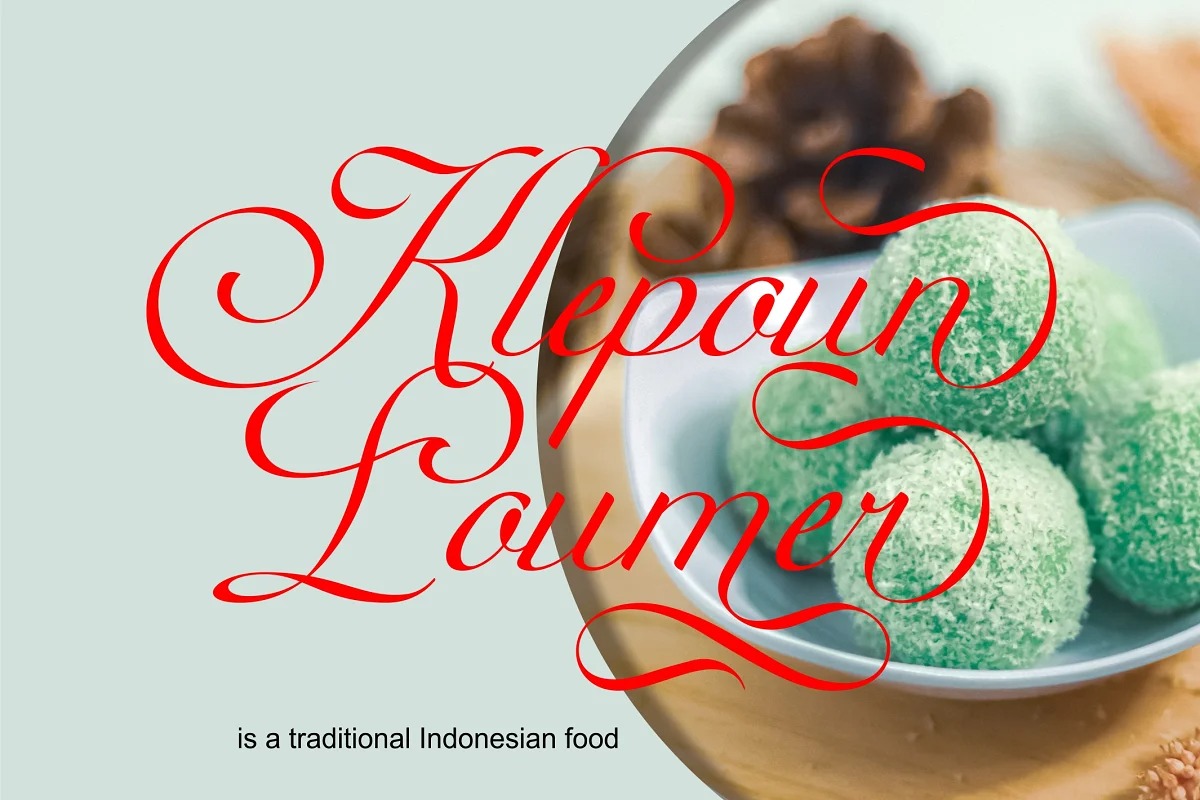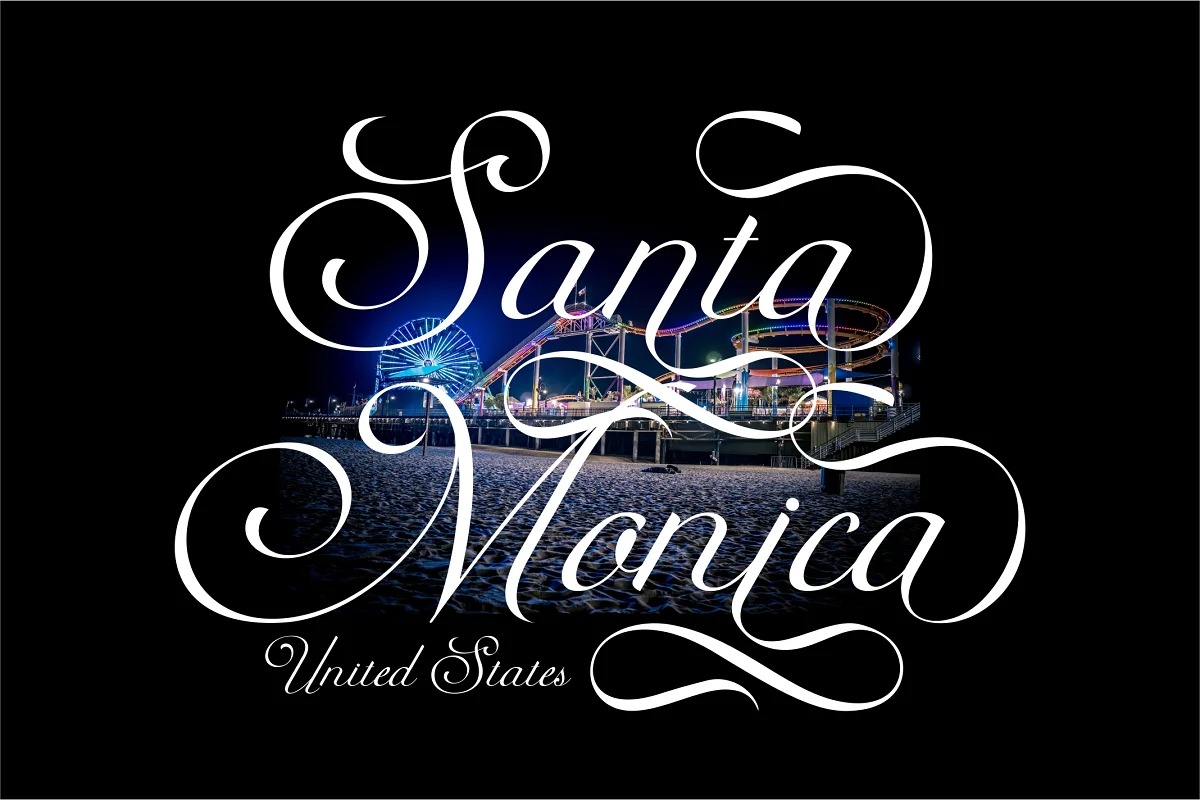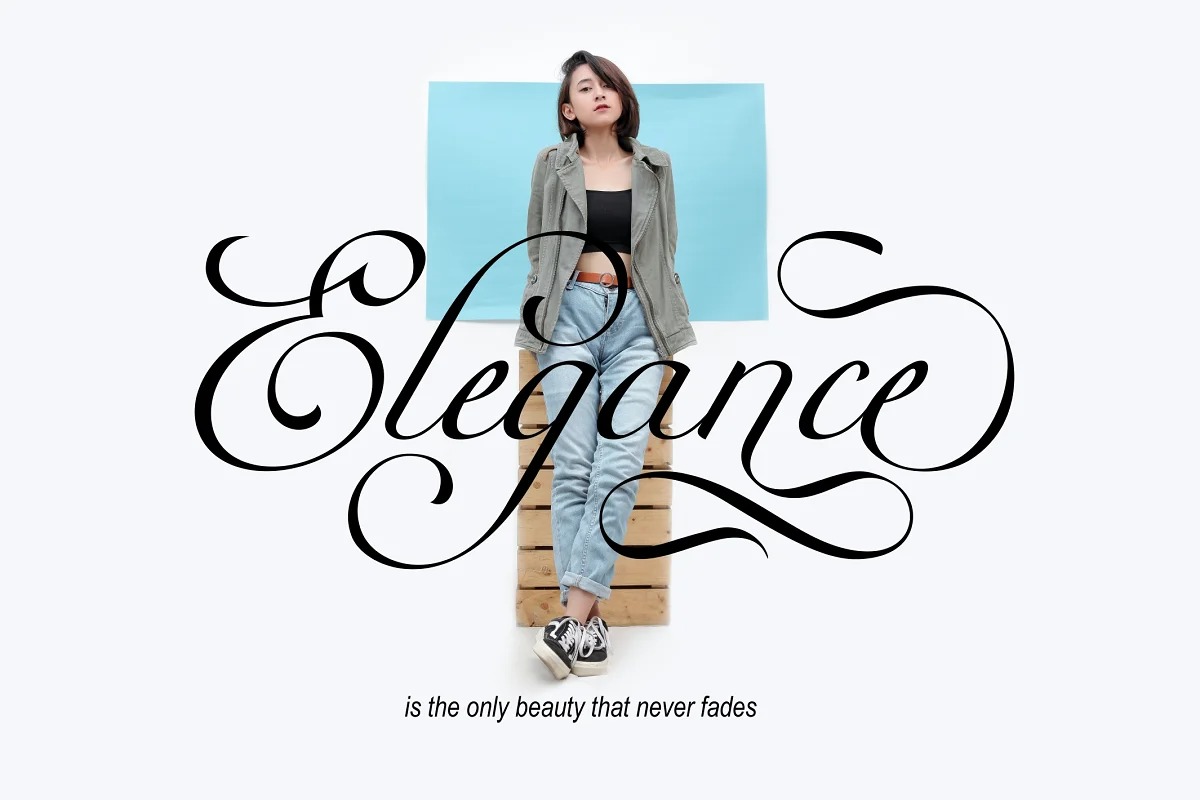
Kalina Font
Kalina Calligraphy Font is a casual script font, with a clean high contrast stroke, slanted and fun character. Kalina is very well made, with very neat strokes that add a luxurious impression, there are many lowercase Alternate letters that you can use to enhance your design, this is really charming, please try it yourself.
Kalina Calligraphy is perfect for Branding, Logos, Wedding Invitations, Quotes, Magazines, and many more.